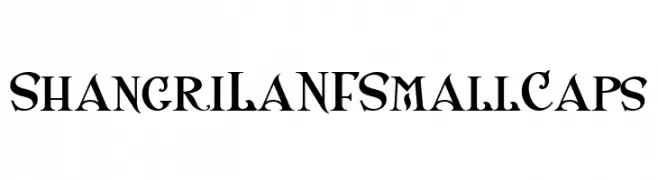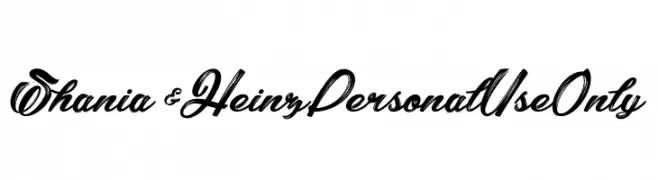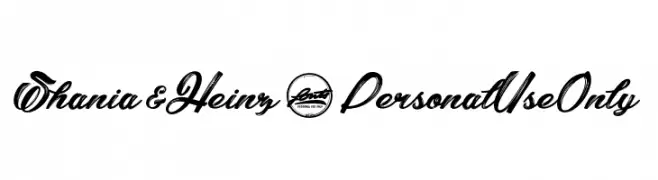
A bold, decorative serif font with artistic flair and intricate details.
A bold, decorative serif font with high contrast and elegant flair.
An elegant script font with flowing, ornate swashes and flourishes.
An elegant script font with flowing, interconnected letters and decorative swashes.
A bold, dynamic script font with flowing strokes and elegant curves.
A bold, dynamic script font with elegant curves and flourishes.
A raw, expressive hand-drawn font with dynamic, irregular strokes.
A bold, hand-drawn font with an energetic, graffiti-like style.
A bold, expressive font with brushstroke-like characters and a gritty, artistic style.
A bold, hand-painted style font with an expressive, artistic flair.